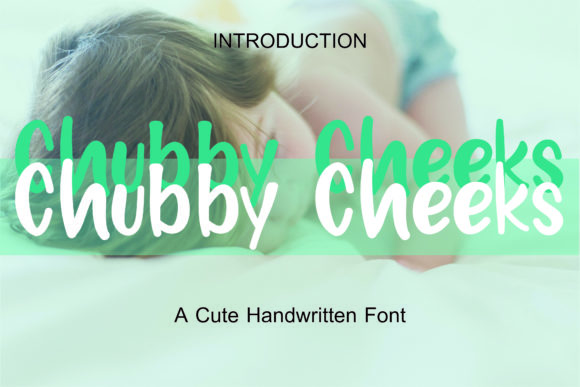
Introducing Chubby Cheeks Font: The Perfect Addition to Your Design Arsenal
Are you tired of using the same old fonts in your designs? Look no further! Chubby Cheeks Font is a friendly and neat handwritten font that is sure to brighten up your creations. Its sweet and full of life style makes it a wonderful choice for designers and crafters looking to add a personal touch to their work.
What is Chubby Cheeks Font?
Chubby Cheeks Font is a unique and charming handwritten font that is perfect for a variety of design projects. Its distinctive style is characterized by its rounded and smooth lines, giving it a friendly and approachable feel. The font is designed to be highly legible, making it suitable for use in a range of applications, from digital designs to print materials.
Key Features of Chubby Cheeks Font
- Handwritten style: Chubby Cheeks Font has a beautiful, handwritten style that adds a personal touch to your designs.
- Neat and clean lines: The font features neat and clean lines, making it easy to read and understand.
- Sweet and full of life: The font’s sweet and lively style makes it perfect for designs that require a playful and youthful feel.
- Highly legible: Chubby Cheeks Font is designed to be highly legible, making it suitable for use in a range of applications.
Why Choose Chubby Cheeks Font?
There are many reasons why Chubby Cheeks Font is an excellent choice for designers and crafters. Here are just a few:
- Unique style: Chubby Cheeks Font has a unique and distinctive style that sets it apart from other fonts.
- Versatile: The font is highly versatile and can be used in a range of applications, from digital designs to print materials.
- Perfect for creative projects: The font is perfect for creative projects, such as crafting, scrapbooking, and journaling.
How to Use Chubby Cheeks Font in Your Designs
- Pair it with other fonts: Chubby Cheeks Font pairs well with other fonts, such as sans-serif fonts and script fonts.
- Use it for headings and titles: The font is perfect for use in headings and titles, where its unique style can really make an impact.
- Add it to your digital designs: Chubby Cheeks Font can be used in digital designs, such as social media graphics and blog posts.
- Use it for print materials: The font can also be used in print materials, such as brochures, flyers, and posters.
In conclusion, Chubby Cheeks Font is a friendly and neat handwritten font that is perfect for designers and crafters looking to add a personal touch to their work. Its sweet and full of life style makes it a wonderful choice for brightening up your designs. With its unique style, versatility, and ease of use, Chubby Cheeks Font is an excellent addition to any design arsenal.